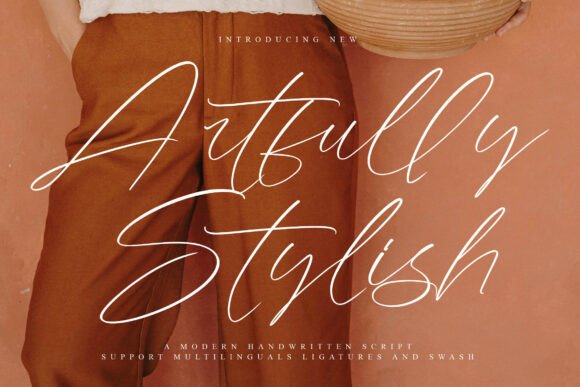
Introducing Artfully Stylish Font: Elevate Your Designs with Elegance and Versatility
In the world of typography, a well-crafted font can make all the difference in elevating your designs to the next level. If you’re looking for a font that exudes elegance, sophistication, and style, look no further than Artfully Stylish. This sleek, fashion-forward handwritten font is designed with versatility in mind, making it perfect for a wide range of applications, from branding and social media graphics to packaging and editorial designs.
The Art of Elegance: Design Features of Artfully Stylish Font
Artfully Stylish Font boasts long, flowing lines that give it a distinctive, high-end feel. Its elegant strokes and carefully crafted letterforms make it perfect for designs that require a touch of sophistication. Whether you’re creating a luxury brand identity, a stylish social media graphic, or a high-end editorial spread, Artfully Stylish Font is sure to impress.
One of the standout features of Artfully Stylish Font is its multilingual support. With the ability to support multiple languages, this font is perfect for global brands and designers who need to create content for diverse audiences. Whether you’re targeting a local market or a global one, Artfully Stylish Font has got you covered.
Versatility at Its Best: Use Cases for Artfully Stylish Font
Artfully Stylish Font is incredibly versatile, making it suitable for a wide range of design applications. Here are just a few examples of how you can use this beautiful font:
- Branding: Create a luxurious brand identity with Artfully Stylish Font. Its elegant strokes and sophisticated feel make it perfect for high-end brands that want to make a statement.
- Social Media Graphics: Elevate your social media presence with stylish graphics created using Artfully Stylish Font. Its multilingual support makes it perfect for global brands and designers.
- Packaging: Add a touch of elegance to your packaging designs with Artfully Stylish Font. Its long, flowing lines and sophisticated feel make it perfect for high-end products.
- Editorial Designs: Create stylish editorial spreads with Artfully Stylish Font. Its elegant strokes and carefully crafted letterforms make it perfect for fashion, lifestyle, and luxury publications.
Why Choose Artfully Stylish Font?
With so many fonts available, why choose Artfully Stylish Font? Here are just a few reasons why this font stands out from the rest:
- Elegance: Artfully Stylish Font exudes elegance and sophistication, making it perfect for high-end designs.
- Versatility: This font is incredibly versatile, making it suitable for a wide range of design applications.
- Multilingual Support: With multilingual support, Artfully Stylish Font is perfect for global brands and designers.
- High-Quality Design: Artfully Stylish Font is designed with high-quality craftsmanship in mind, ensuring that your designs look professional and polished.
Tips for Using Artfully Stylish Font
To get the most out of Artfully Stylish Font, here are a few tips to keep in mind:
- Pair it with neutral colors: Artfully Stylish Font looks stunning when paired with neutral colors like black, white, and gray. Try pairing it with a bold color to create a striking contrast.
- Experiment with font sizes: Artfully Stylish Font looks great in a variety of font sizes. Experiment with different sizes to find the one that works best for your design.
- Use it sparingly: While Artfully Stylish Font is elegant and sophisticated, it can be overwhelming if used too much. Use it sparingly to create a striking impact.
In conclusion, Artfully Stylish Font is a sleek, fashion-forward handwritten font that is perfect for designers who want to elevate their designs to the next level. Its elegant strokes, long flowing lines, and multilingual support make it ideal for a wide range of design applications, from branding and social media graphics to packaging and editorial designs. With its versatility, high-quality design, and sophisticated feel, Artfully Stylish Font is sure to become a go-to font in your design arsenal.